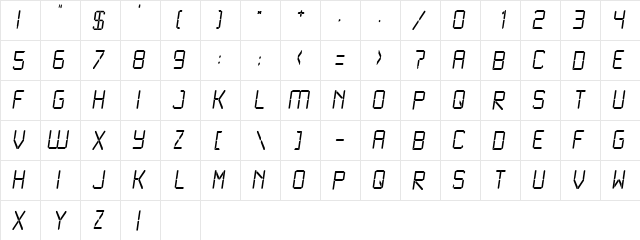
LCD Light
Design Context for LCD Typeface
LCD takes a measured approach to typography — its balanced proportions and neutral character make it a reliable workhorse for both digital and print work. Its slender proportions lend an understated elegance to any composition.